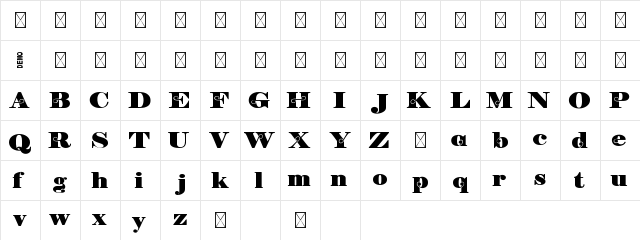
Feba Demo Font Preview
Feba Demo
Design Context for Feba Typeface
Feba is a composed and adaptable typeface that performs quietly and consistently across a wide range of design contexts.